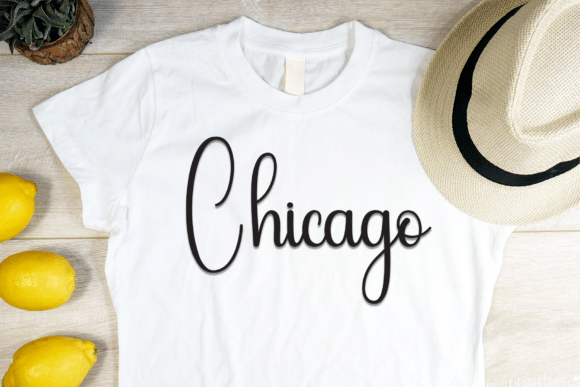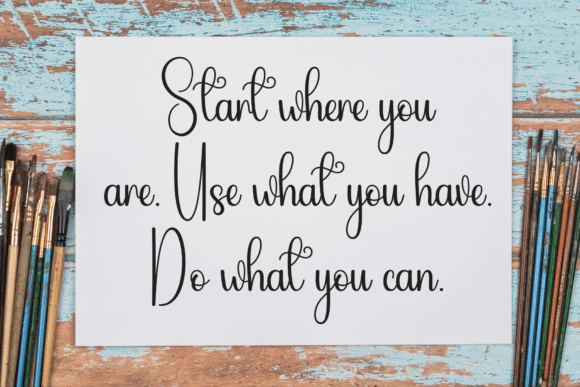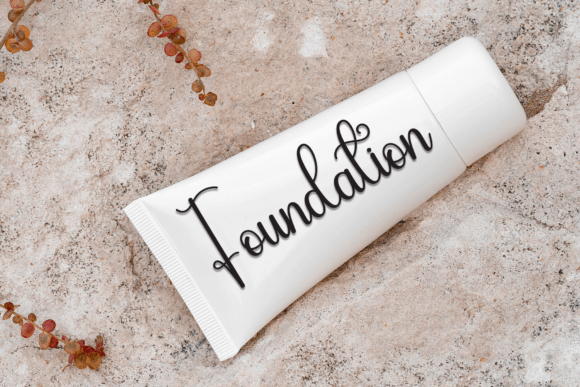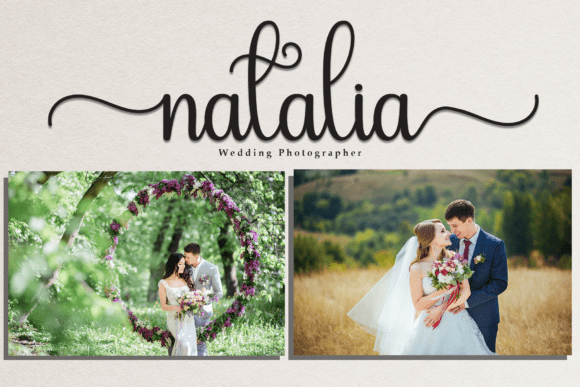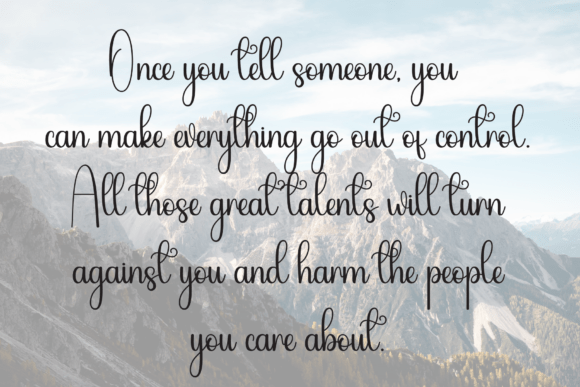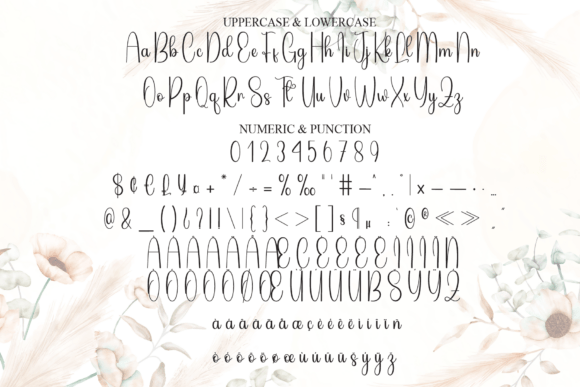
The Elusive Font: A Designer’s Journey to Discovering Amellia
I still remember the frustration of working on a client project, searching for the perfect font to capture the essence of their brand. The project required a touch of elegance, a dash of sophistication, and a whole lot of personality. As I scrolled through font after font, I couldn’t help but feel like something was missing. That was until I stumbled upon Amellia, a stylish handwritten script font that radiates elegance and fluidity.
First Impressions: A Love Affair with Amellia
As soon as I laid eyes on Amellia, I knew I had found the one. Its smooth, flowing strokes create a natural and sophisticated feel, perfect for branding, invitations, and creative projects. With a graceful balance of charm and modernity, this typeface adds a personal, artistic touch to any design.
What I Love About Amellia ✨
- 💫 Elegant and sophisticated feel
- ✅ Perfect for branding, invitations, and creative projects
- 🌈 Highly versatile and adaptable to different design styles
- 📝 Excellent for adding a personal, artistic touch to designs
- ⚠️ Limited use of uppercase letters, which can make it less suitable for certain design applications
- 🤔 May not be the best choice for very long texts or body copy
Exploring Alternatives: Similar Fonts to Amellia
If you love Amellia, you may also want to consider these similar fonts:
- Lobster: A elegant and refined script font perfect for formal designs and invitations.
- Pacifico: A modern and sophisticated script font great for branding and creative projects.
- Great Vibes: A fun and artistic script font ideal for adding a personal touch to designs.
- Alex Brush: A beautiful and elegant script font suitable for formal and informal designs.
The Story Behind Amellia: Designer Inspiration
Amellia was designed with the intention of creating a font that exudes elegance and sophistication. The designer aimed to craft a typeface that would be perfect for creative projects, branding, and invitations. With its smooth, flowing strokes and natural feel, Amellia has become a popular choice among designers and crafters.
Q: What is Amellia font best used for?
A: Amellia font is best used for creative projects, branding, invitations, and designs that require a touch of elegance and sophistication.